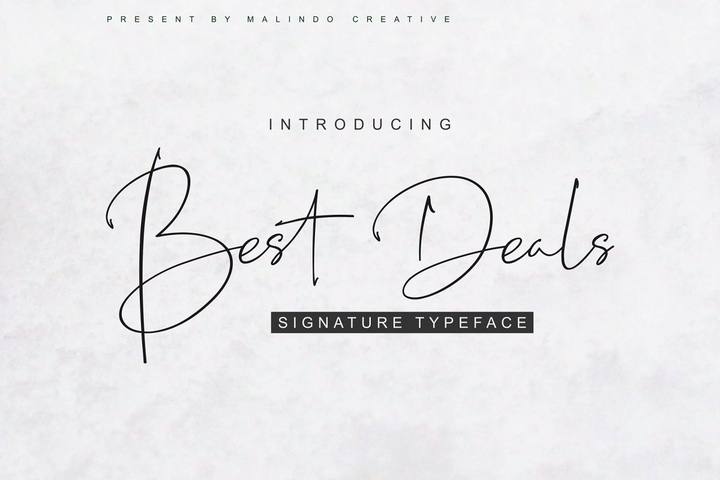
Best Deals Font
Best Deals Font is perfect for retail sale signage, promotional marketing materials, discount store branding, shopping center advertisements, clearance event graphics, e-commerce promotional banners, bargain hunter campaigns, special offer announcements, value-focused retail communications, and competitive pricing displays.
Best Deals Font is exciting because it perfectly captures the urgency and excitement of incredible savings opportunities, creating a typeface that embodies value, affordability, and the irresistible appeal of unbeatable bargains. This font brings commercial energy and deal-focused appeal to any project, making it ideal for retailers and businesses that want to convey exceptional value, competitive pricing, and the compelling excitement of limited-time offers. Its promotional character and savings-focused design create an atmosphere of shopping excitement that resonates with value-conscious consumers seeking the best possible deals.
Best Deals Font family includes regular, bold, condensed, and eye-catching variations, plus promotional symbols, sale ornaments, and deal-focused decorative elements, providing designers with comprehensive tools for creating compelling retail typography and savings-focused marketing experiences.
This dynamic promotional typeface combines retail aesthetics with contemporary functionality, making Best Deals Font Free Download a perfect choice for projects celebrating consumer value and shopping excitement. The font's strategically crafted letterforms feature attention-grabbing proportions and deal-inspired styling that reflect the urgency and appeal of exceptional savings opportunities and competitive retail pricing.
Whether you're designing retail sale campaigns, promotional marketing materials, or discount shopping communications, Best Deals Font delivers unmatched promotional authenticity and commercial appeal. The font excels in both large-scale retail environments and detailed promotional materials where value messaging and deal excitement create compelling shopping experiences.
Retail professionals choose Best Deals Font for its ability to instantly communicate exceptional value and shopping excitement while creating emotional connections with consumers seeking the best possible deals and savings opportunities. The font's promotional character makes it particularly effective for discount retailers, promotional campaigns, and value-focused marketing initiatives.
Each character reflects the exciting energy of incredible savings, featuring bold construction and deal-optimized proportions that create typography as compelling and irresistible as flash sales, clearance events, and the thrill of discovering amazing bargains.